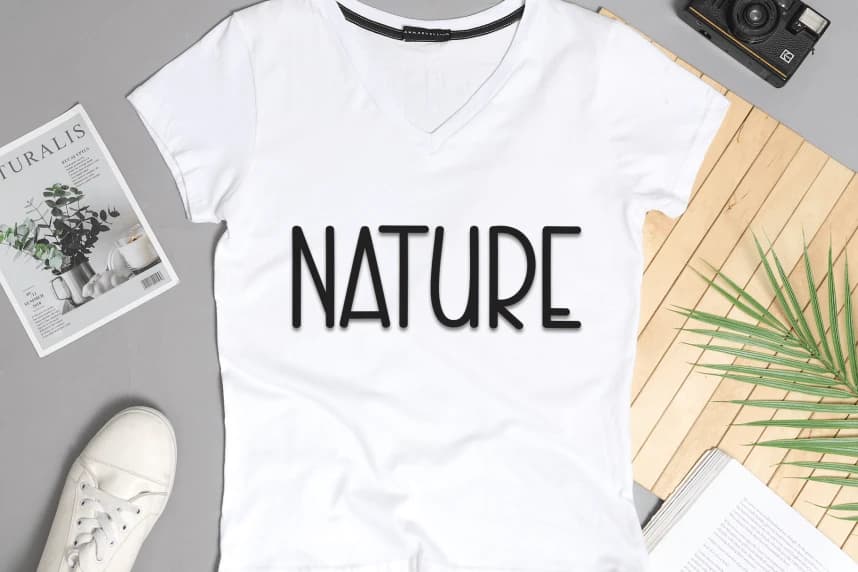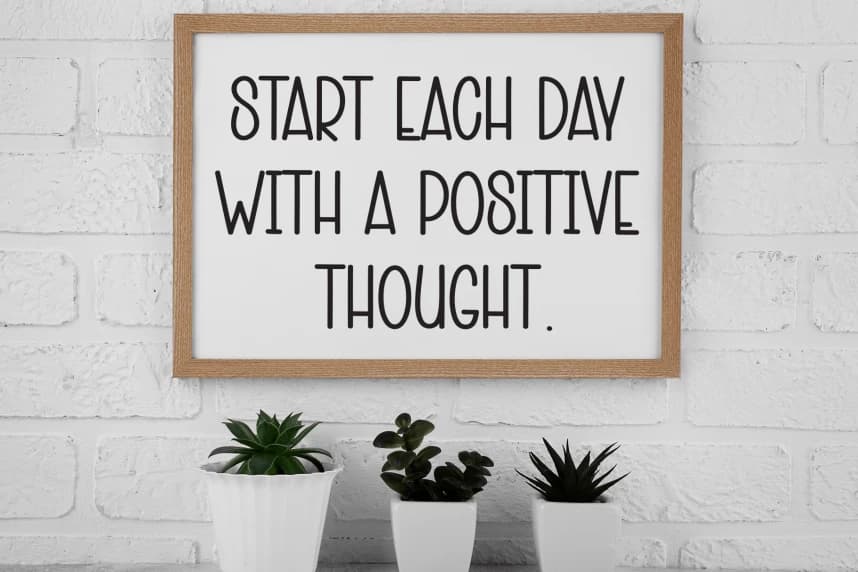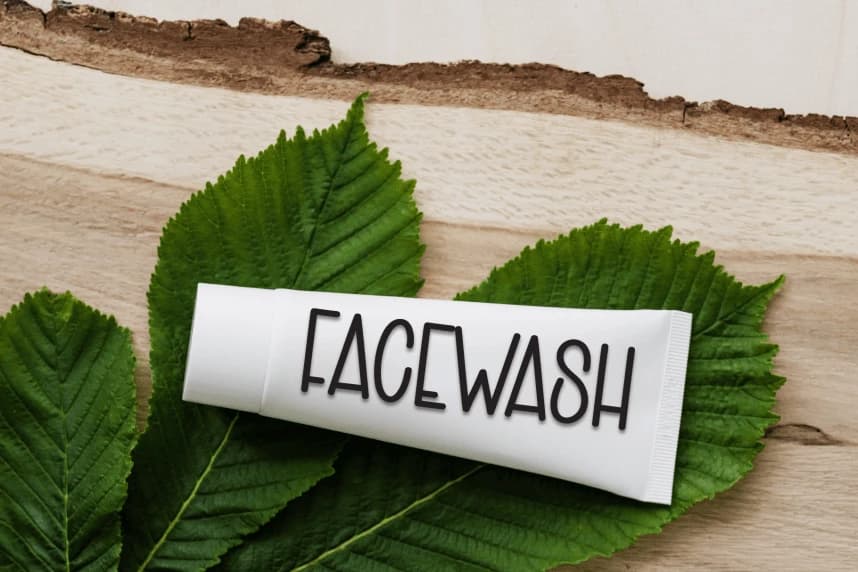
Design Modern Handcrafted Font
Design Modern Handcrafted Font is a sweet and friendly handwritten display font. Cute and fun, this font is ideal for writing wedding invitations, cards, or any other design that might need a playful touch!